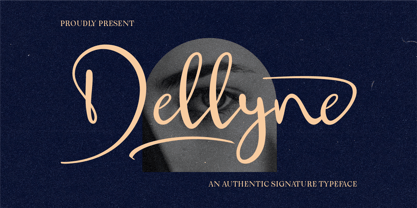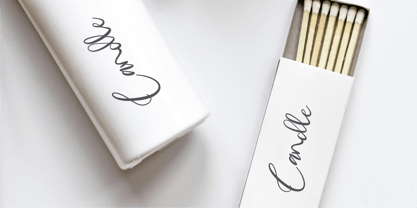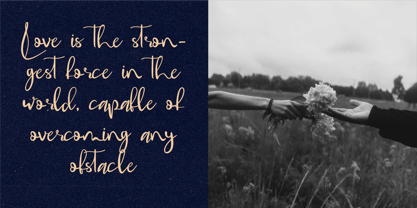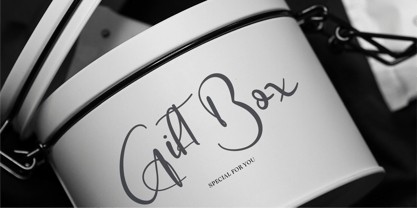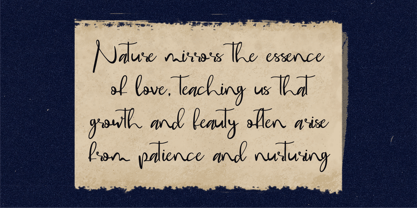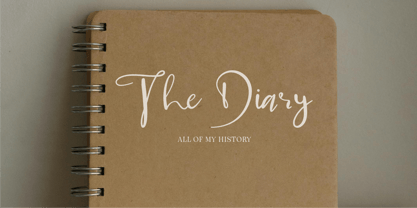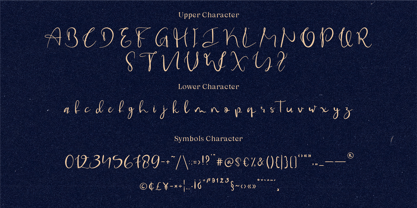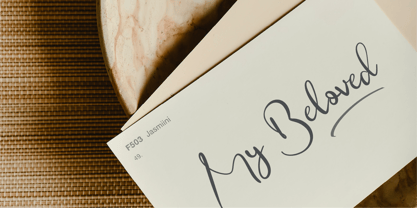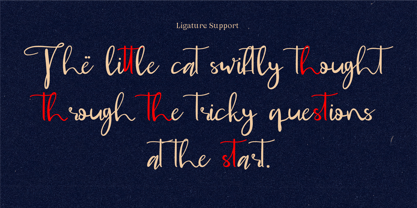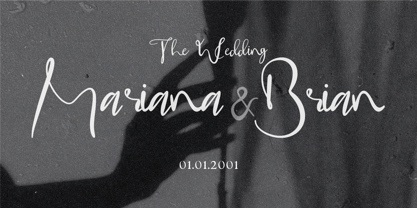
CF Dellynne
by Indotype
The CF Dellynne Font Family was designed by Gilang Mei Nugraha, Frederik Aristaputra and published by Indotype. CF Dellynne contains 1 styles.
Dellynne is a graceful handwritten font that exudes softness and natural elegance. Its whimsical strokes and playful flow mimic the authenticity of a signature, adding a personal and heartfelt touch to any design. Perfect for branding, invitations, logos, or stationery, Dellynne combines charm and sophistication to create a unique, approachable aesthetic. Its fun yet refined character makes it versatile for both casual and formal projects, embodying the warmth of a personal handwritten note.
• Standard Character A-Z, a-z, 0-9, Punctuation & symbols
• Regular Style
• Multilingual Support
• Alternates & Ligatures Included
Designers: Gilang Mei Nugraha, Frederik Aristaputra
Publisher: Indotype
Foundry: Indotype